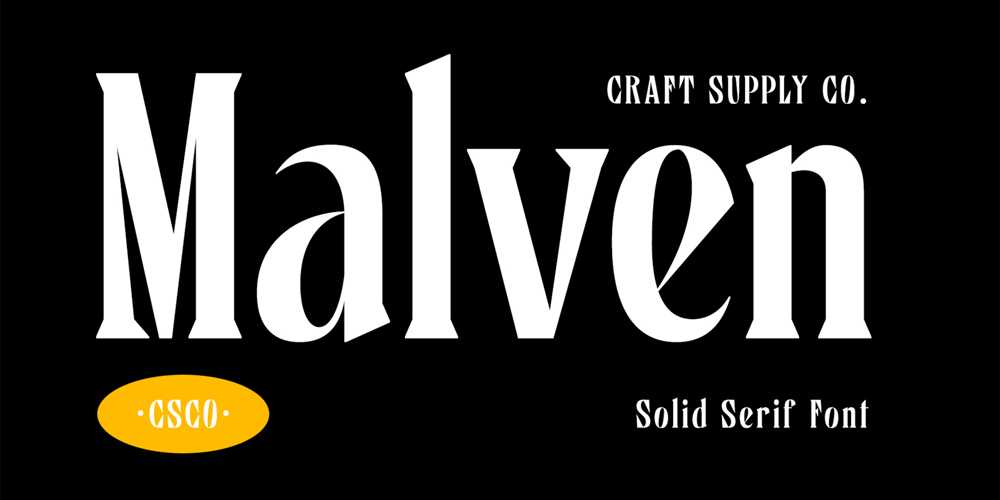
Malven
Malven font
Malven Font Family was designed by Trio Nazzar Saputra and published by Craft Supply Co. Malven contains 1 styles and family package options. Malven is a modern serif features thin stroke, low-contrast modulation, with small serif that make it elegant and classy. It can be used to create almost all types of design projects like print materials. Just use your imagination and your project will become more alive and look great than ever with this typeface.